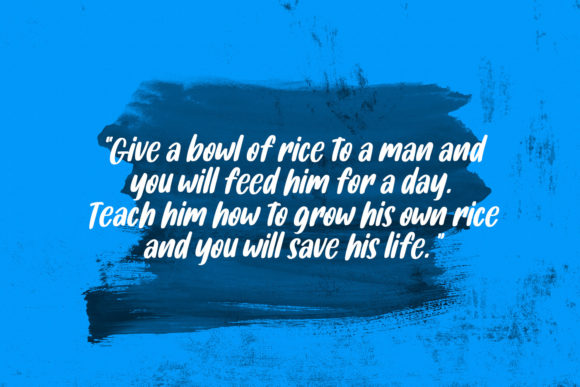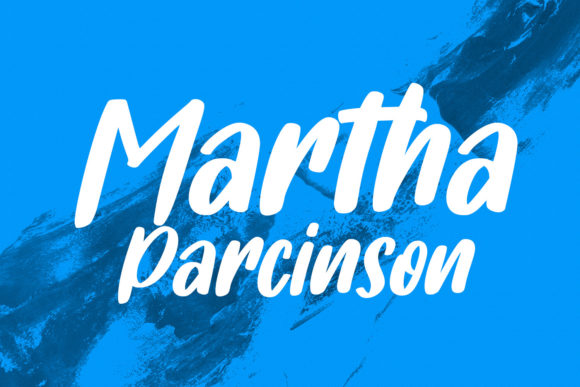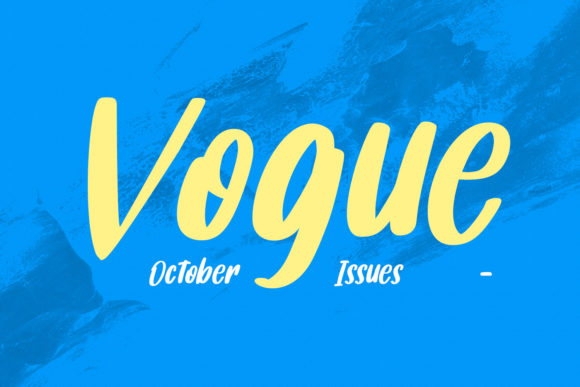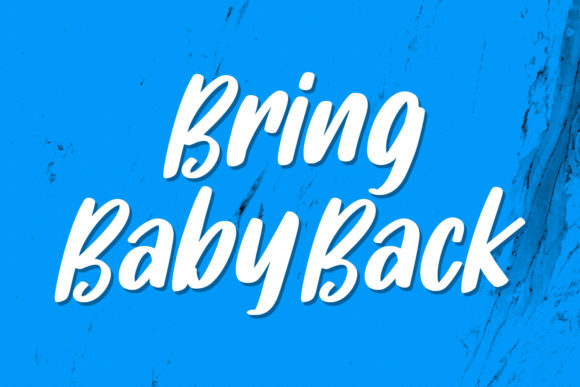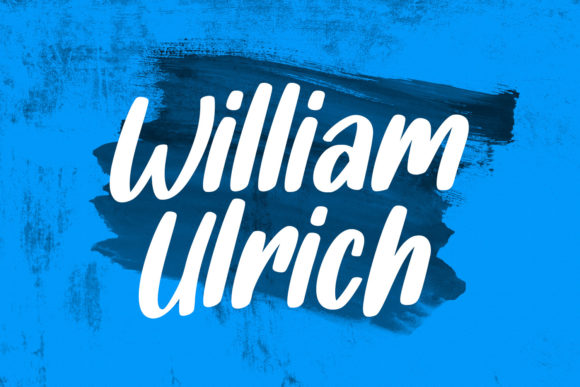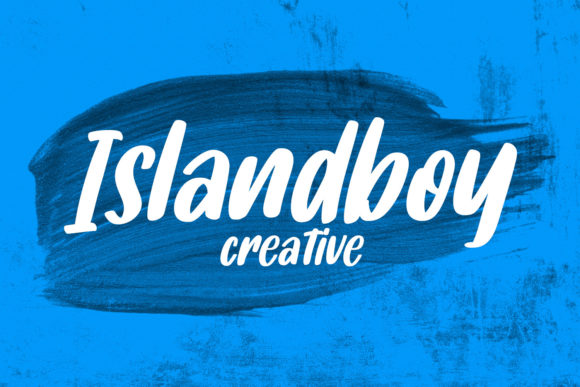
Introduction to Ricksons Font Font
Fonts play a crucial role in design, and the Ricksons Font font is a typeface that brings both character and versatility to any project. Whether you’re working on a branding project, a website, or a print design, the Ricksons Font font offers a unique style that can elevate your work.
Ricksons is a trendy, casual and adaptable handwritten font.
Whether youβre looking for fonts for Instagram or calligraphy scripts for DIY projects, this font will turn any creative idea into a true piece of art .
Key Features of Ricksons Font Font
Why Choose Ricksons Font Font?
The Ricksons Font font is more than just a typeface β it’s a design tool that helps you communicate your message with style and clarity. Its unique character set and versatile design make it suitable for a wide range of applications, from elegant invitations to bold headlines.
With its carefully crafted letterforms and balanced proportions, the Ricksons Font font ensures readability and visual appeal across all mediums.
What makes Ricksons Font font special?
The Ricksons Font font stands out with its unique design, exceptional readability, and versatility across various design applications.